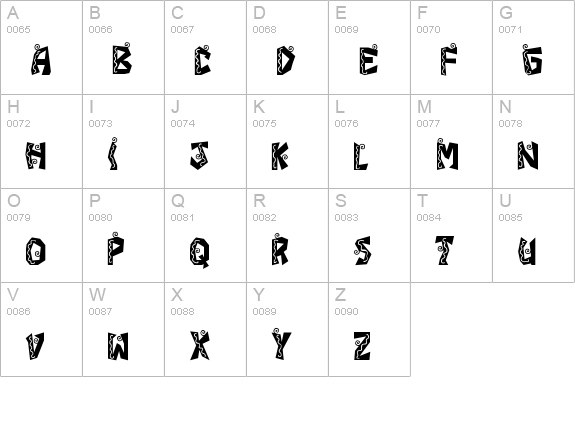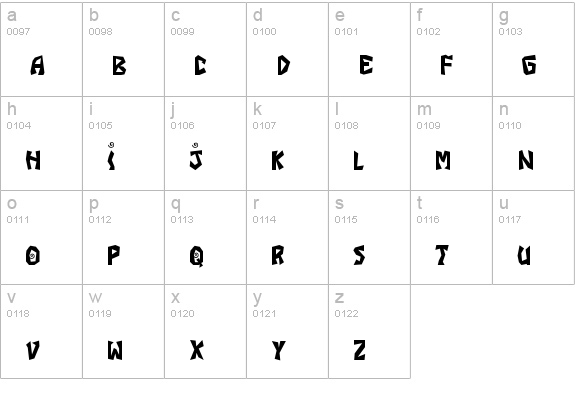
JI Fajita Font Details
Introducing JI Fajita font, a unique and stylish typeface that will add a touch of flair to your projects. This font combines a modern aesthetic with a hint of rustic charm, making it versatile for a wide range of design applications. With its bold and eye-catching letterforms, JI Fajita is sure to make a statement and captivate your audience. What sets JI Fajita font apart is not only its striking design, but also the fact that it is available for free download at FontsMarket.com. This means you can enhance your designs with this high-quality font without breaking the bank. Whether you're working on a branding project, poster design, or any other creative endeavor, JI Fajita font is a fantastic choice that will elevate your work to the next level. Don't miss out on the opportunity to add JI Fajita font to your font collection today. Download it for free at FontsMarket.com and start creating stunning designs that stand out from the crowd.